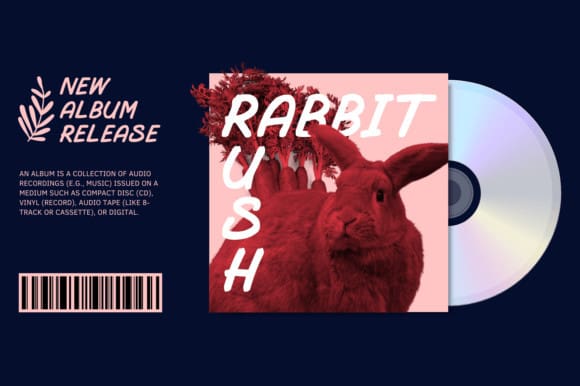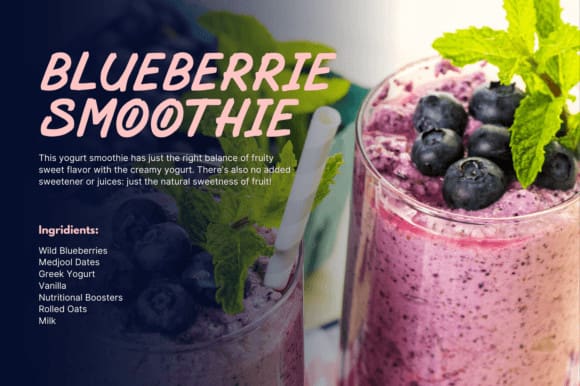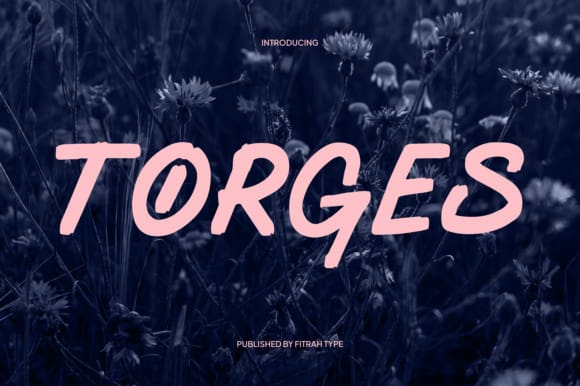
Torges Display Font
Torges Display Font, a contemporary masterpiece of marker style typeface. Tailored explicitly for grand-scale applications, Torges offers a captivating visual dynamic that breathes life into everything it touches, whether it be immersive social media presentations, compelling marketing posts, compelling merchandise designs, or product packaging and branding initiatives. Experience the versatility of Torges, a font that gracefully accommodates uppercase, lowercase, numerals, and punctuation with an effortless flair. Engage, inspire and make an impact with every letter – that’s the promise of Torges.